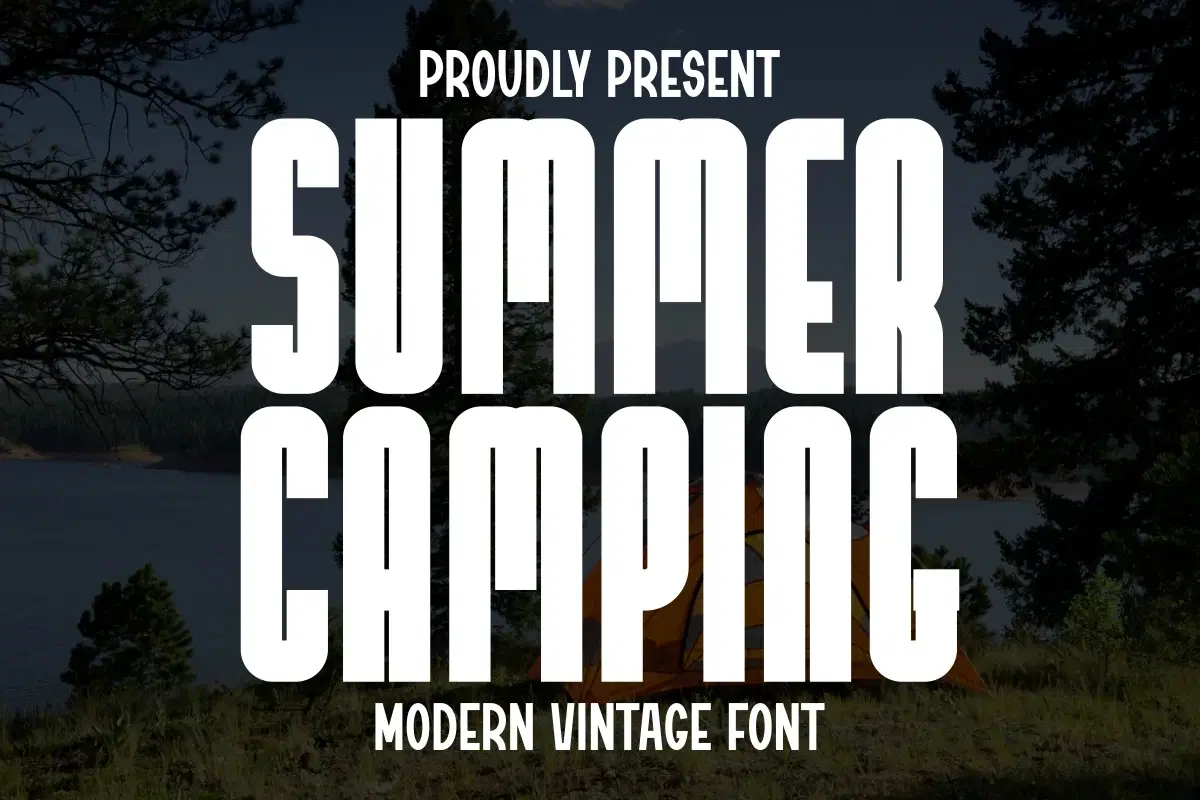
Summer Camping - Modern Vintage Font
Capture the Adventure! 🏕️ Summer Camping is a rugged, Modern Vintage Font perfect for channeling the great outdoors and nature aesthetic. Its tall, bold condensed style makes it an excellent display typeface for striking headlines that demand attention. Ideal for camping T-shirts, adventure logos, travel postcards, outdoor event posters, and any design that needs a powerful, retro yet clean vintage feel. Download this versatile, all-caps font and start your creative expedition!